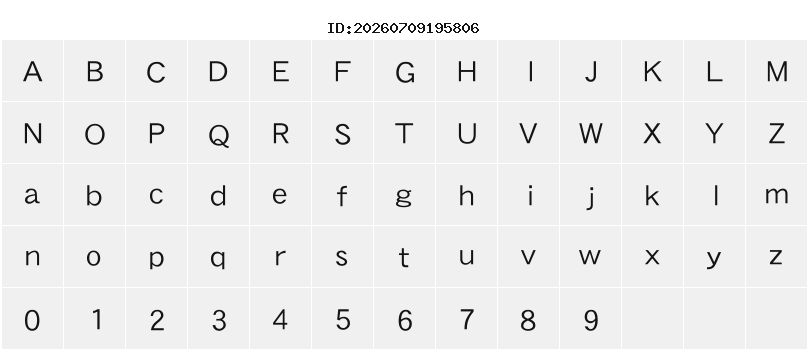
• Font Name: DFPHeiMedium-B5
About DFPHeiMedium-B5.ttf
DFPHeiMedium-B5.ttf is a modern, elegant sans-serif font designed for ultimate readability and visual harmony. Perfect for branding, headlines, web design, and print materials.